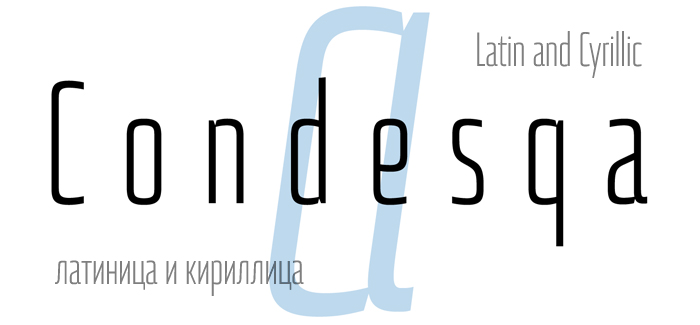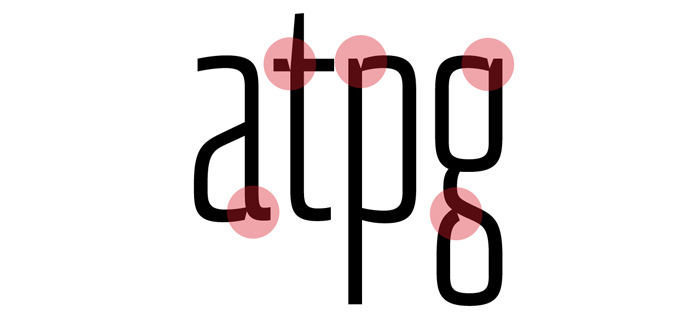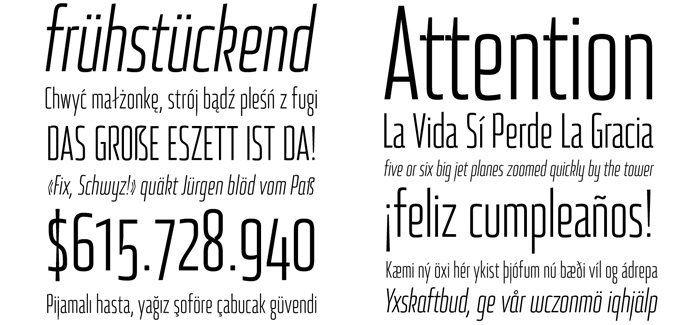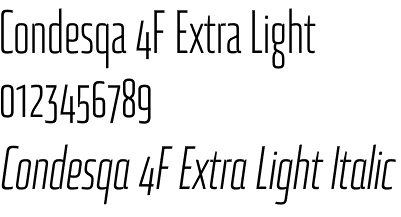
Condesqa 4F font
Condesqa 4F font is a modern condensed sans-serif typeface by Sergiy Tkachenko / 4th February Type Foundry. Based on Attentica 4F font we find in Condesqa even more originality and style in every character and though they are a lot different we somehow feel same individuality we’d already seen in Zantiqa font. Condesqa has very identical and strong presence flavored with a lot of attention to tiniest details and excellent readability. Highly recommended both for use in print design or for web sites, applications and e-books. It is designed with matching italics and supports wide set of diacritics, ligatures and alternates. Another great extra feature is the Cyrillic alphabet which automatically turns Condesqa 4F font into desired typeface for many countries on Balkans and Russia. Excellent for editorial design, technical literature editions, posters and strong headlines.